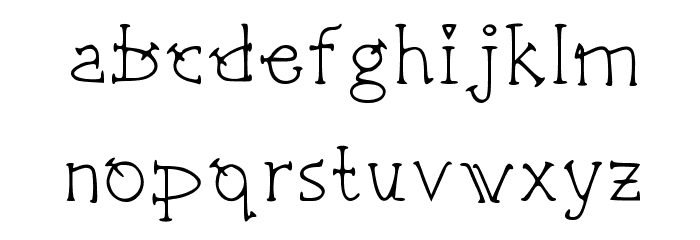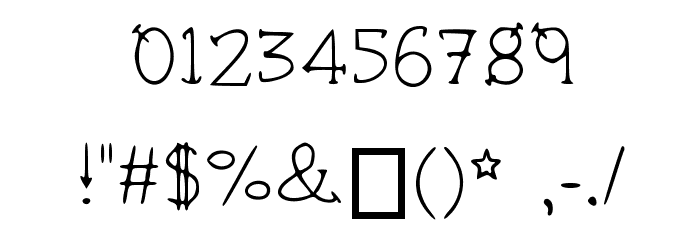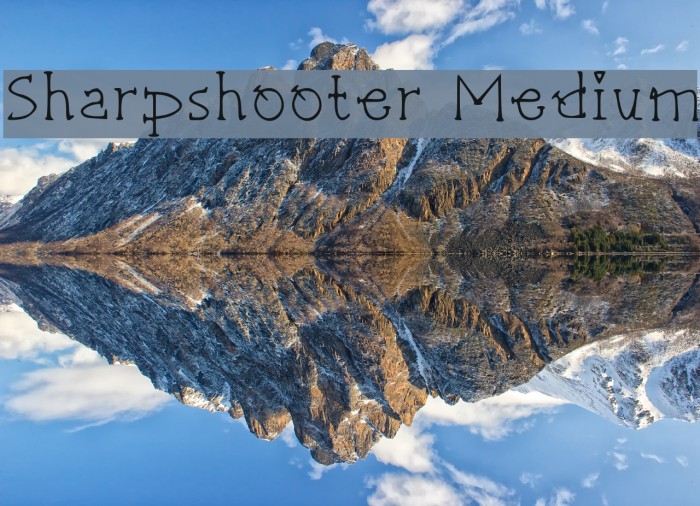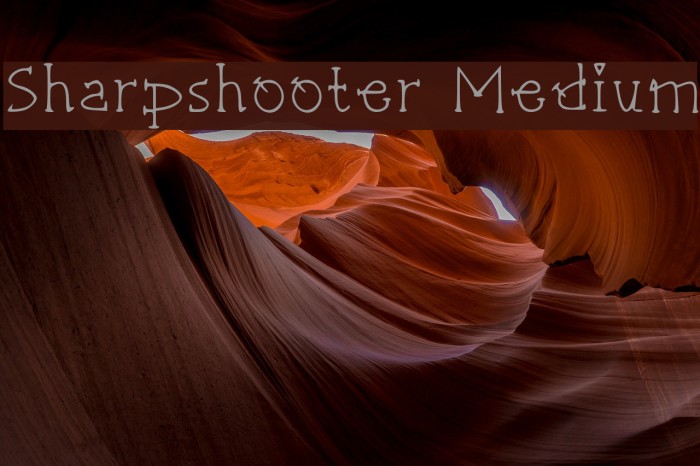
Sharpshooter Medium Font
This font features a unique and playful design with a hand-drawn aesthetic. The characters are slightly irregular, giving it a whimsical and artistic feel. The uppercase letters have a distinct, quirky style with varying stroke thickness, while the lowercase letters maintain a consistent, yet playful appearance. The numbers and special characters complement the overall style, adding to its charm. This font is ideal for projects that require a creative and informal touch, such as children's books, greeting cards, or artistic posters.
A whimsical, hand-drawn font with playful, irregular characters.
- Proposed Projects: Children's books, greeting cards, artistic posters, creative branding.
- Use Case: Headlines, Artistic projects, Informal designs.